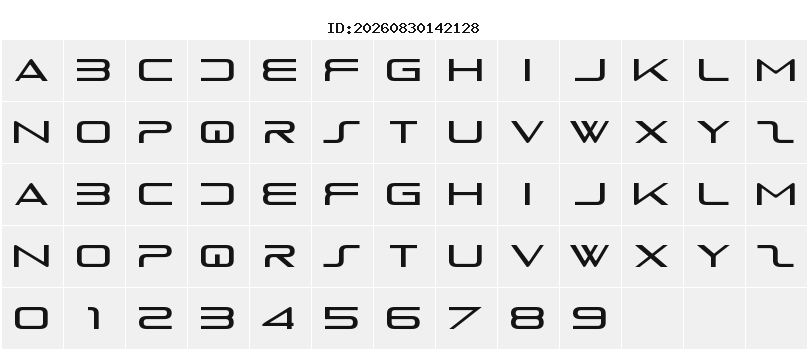
• Font Name: The Rave Is In Your Pants
• Full Font Name: The Rave Is In Your Pants
• Version: Version 1.00 July 26, 2013, initial release
About The Rave Is In Your Pants.otf
The Rave Is In Your Pants.otf is a modern, elegant sans-serif font designed for ultimate readability and visual harmony. Perfect for branding, headlines, web design, and print materials.